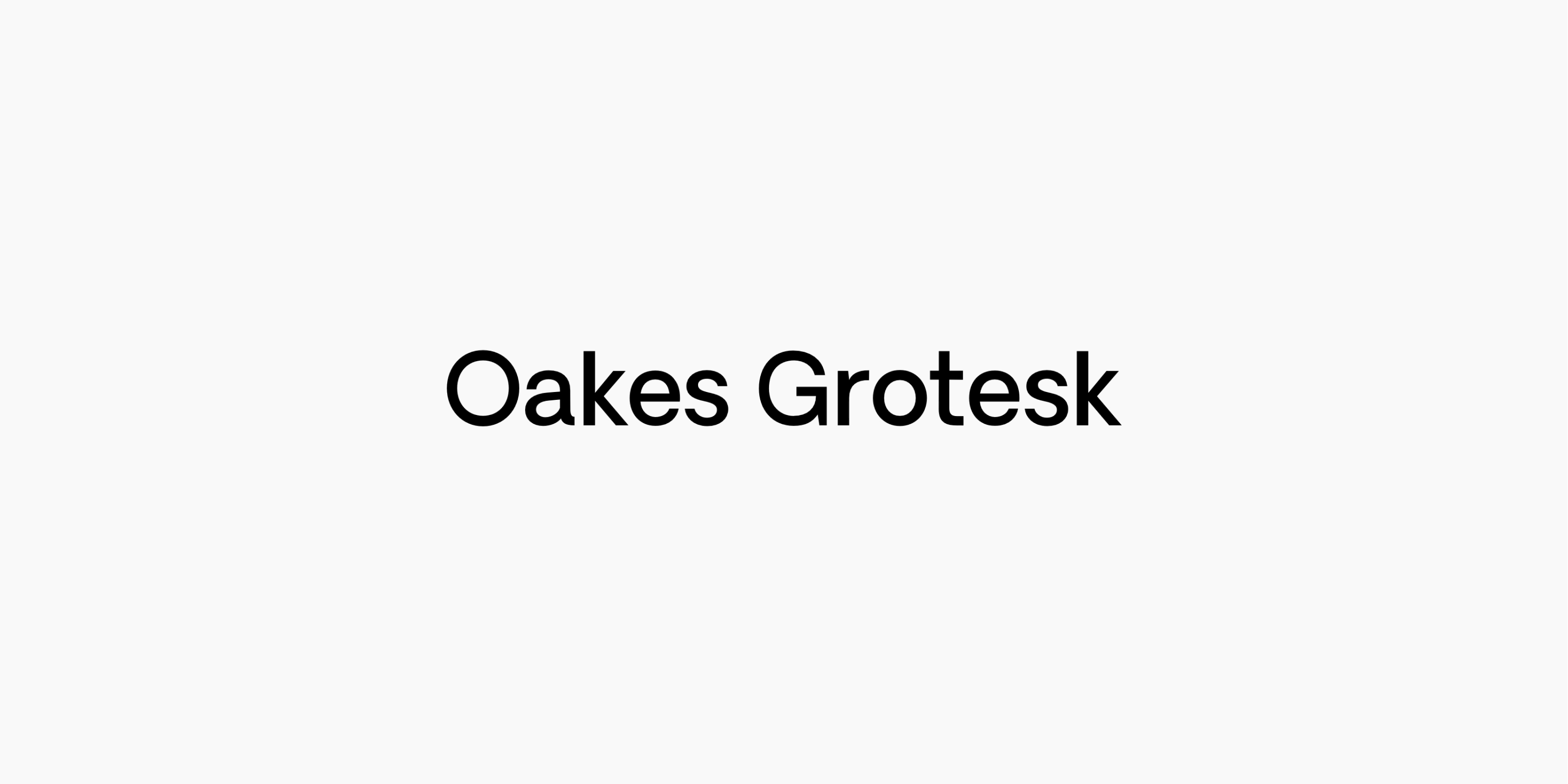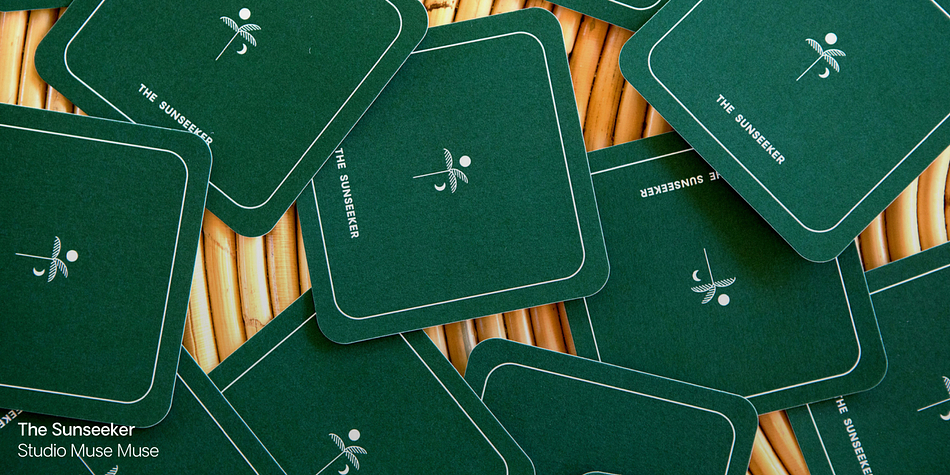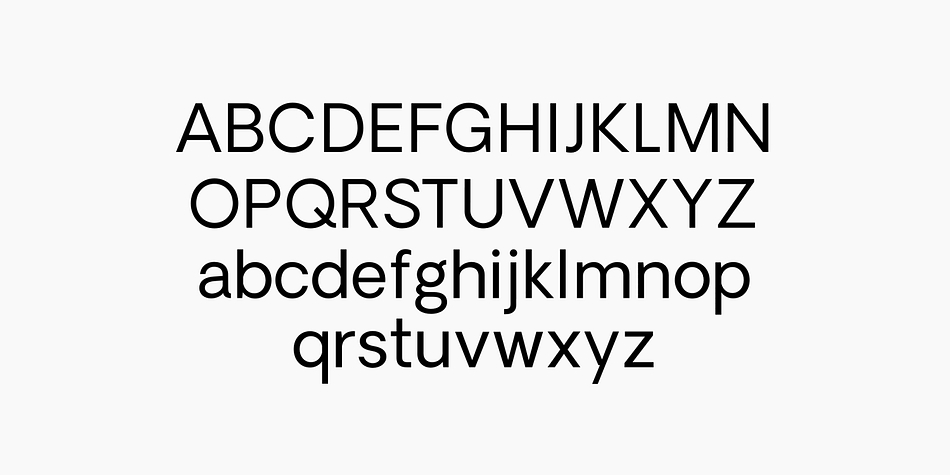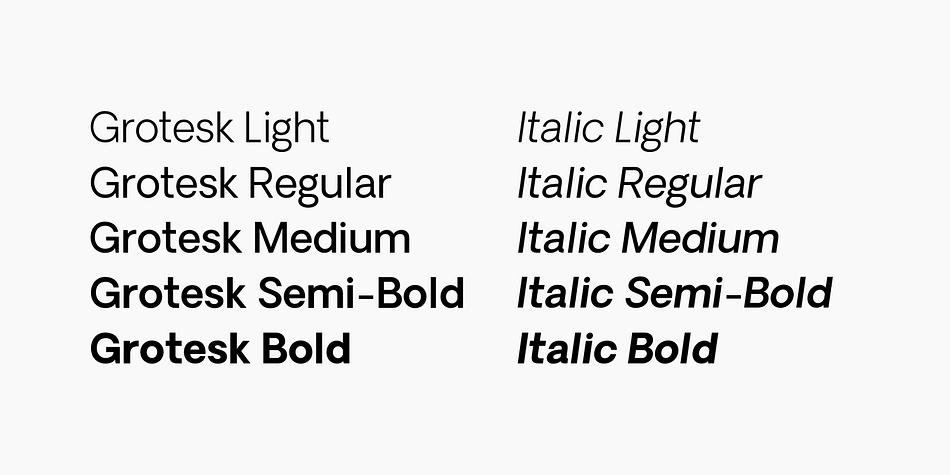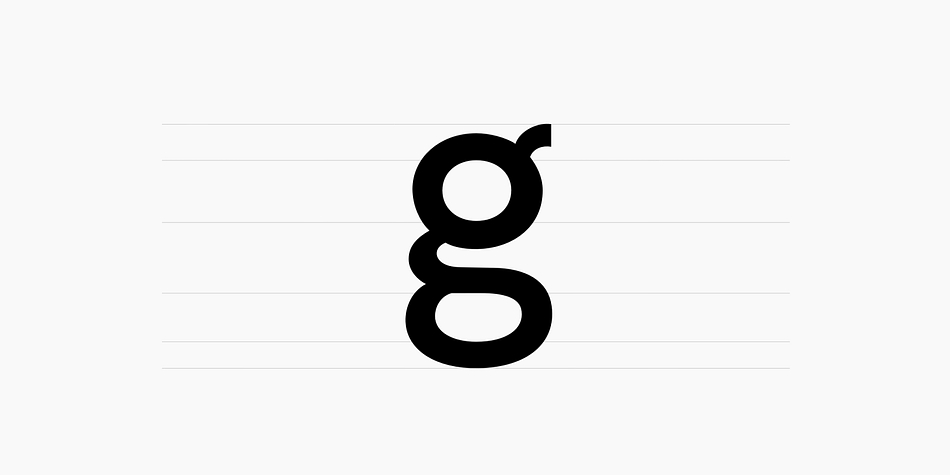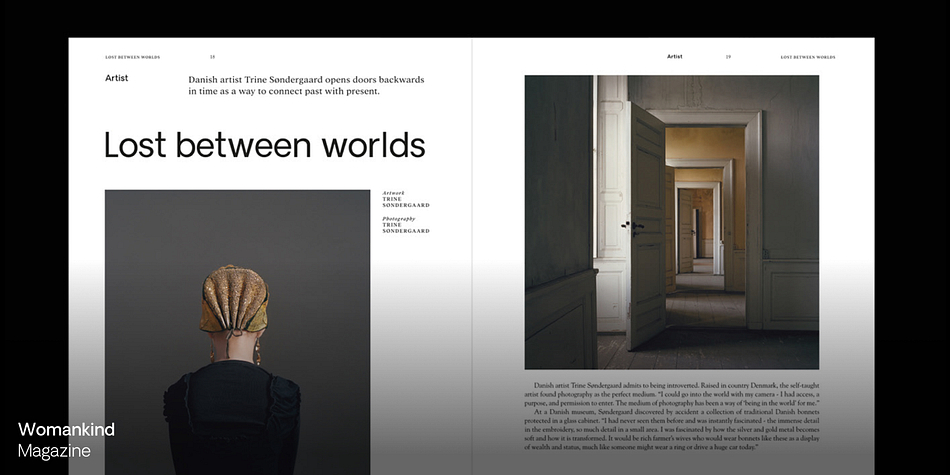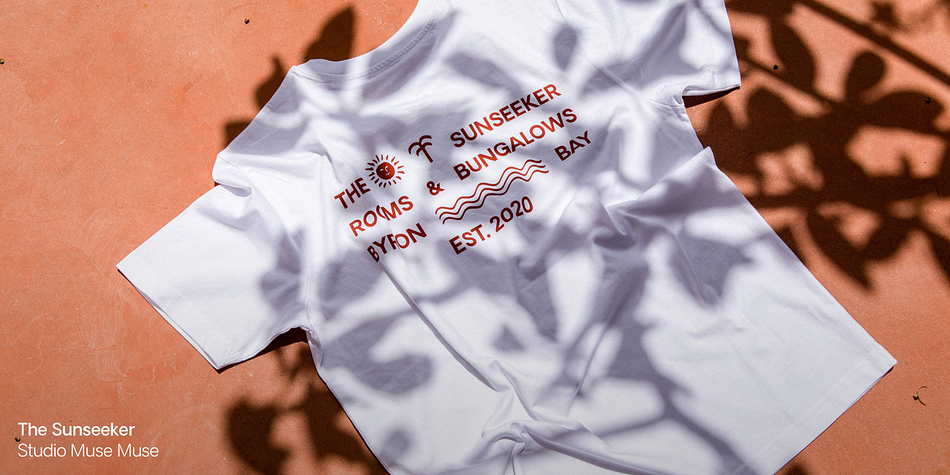
Oakes Grotesk
Oakes Grotesk is a sans serif font family. This typeface has eleven styles and was published by Studio Few.
Oakes Grotesk is a more corporate take on the Oakes typeface. It explores a set of brand new metrics that allow it to be more legible in body text as well as headings. The letter ‘g’ has been tweaked to become double-story as well as the refinement of other characters. This is all whilst maintaining the subtle curves of the Oakes typeface.